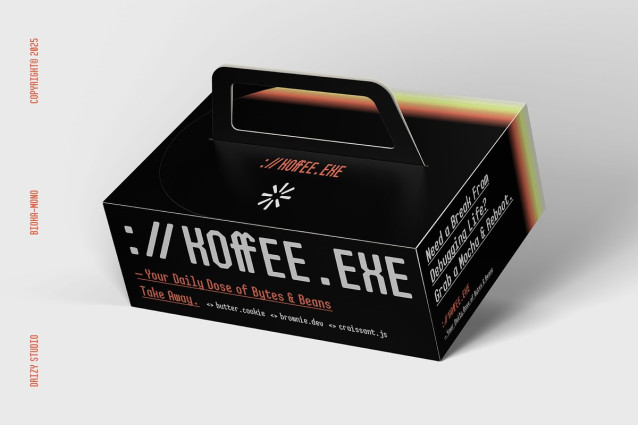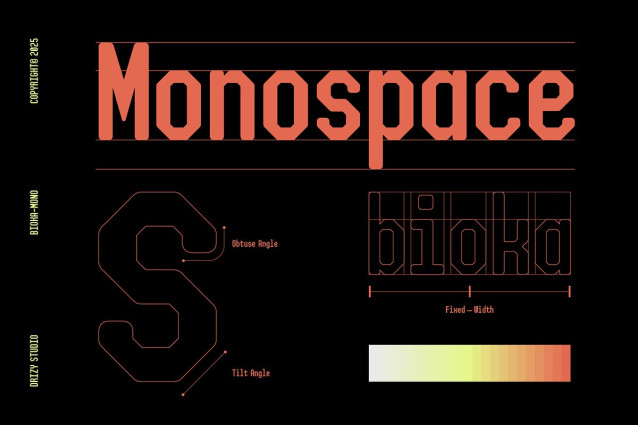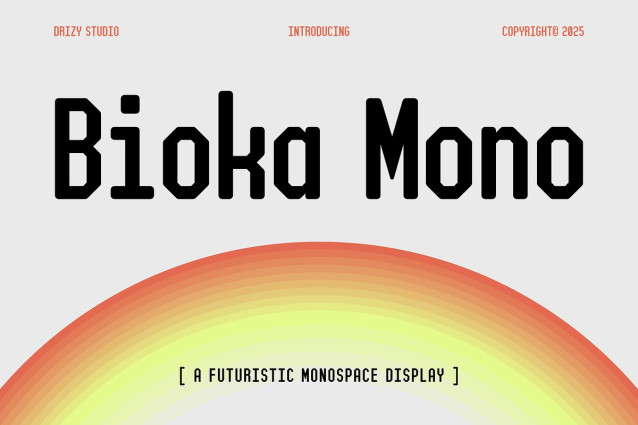
Bioka Mono Font
Bioka Mono Font – Futuristic Monospace Display Font is a cutting edge, futuristic monospace display font that seamlessly blends the precision of monospace forms with the sleek, minimalist aesthetic of modern design. As a member of the Geometric Monospace category, Bioka Mono exudes a sense of balance and clarity, making it ideal for coding environments, technical documentation, and digital products that demand both legibility and style. The font’s sharp angles and smooth curves evoke a sense of forward thinking, futuristic design while maintaining an easy to read structure, making it both practical and visually appealing. Whether you’re designing a user interface, creating a sci-fi inspired visual, or developing cutting edge software, Bioka Mono provides a unique typographic experience that feels both modern and timeless. Its geometric nature gives it a strong, robust presence, while its monospace format ensures that every character occupies the same width, making it perfect for precise alignment in programming and technical layouts. Embrace the future of typography with Bioka Mono, where technology meets artistry in every character.